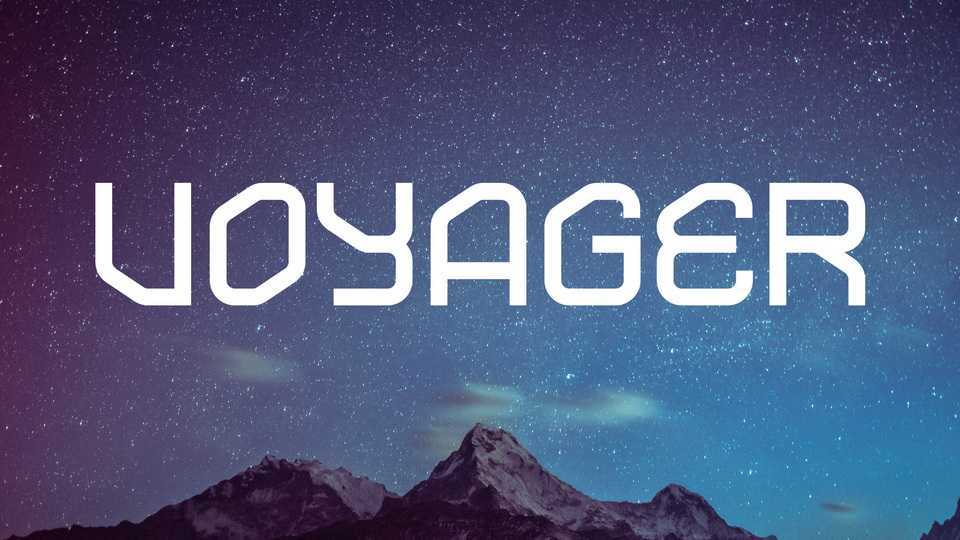
Dwnload Voyager font, the ultimate techno font for creating sleek and modern designs that demand attention. With its futuristic design, this display font is perfect for creating logos, banners, and other content related to technology, sci-fi, and more.